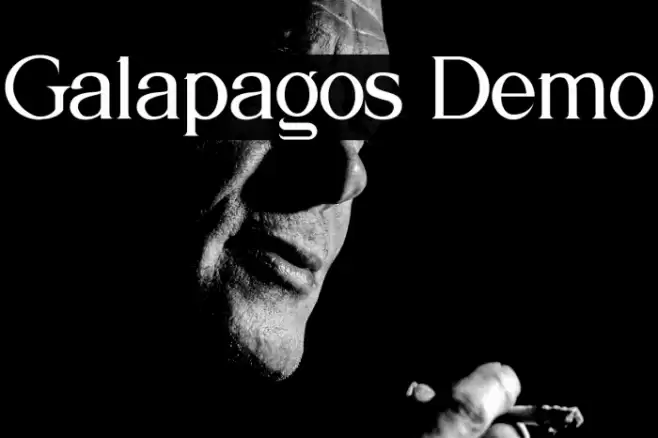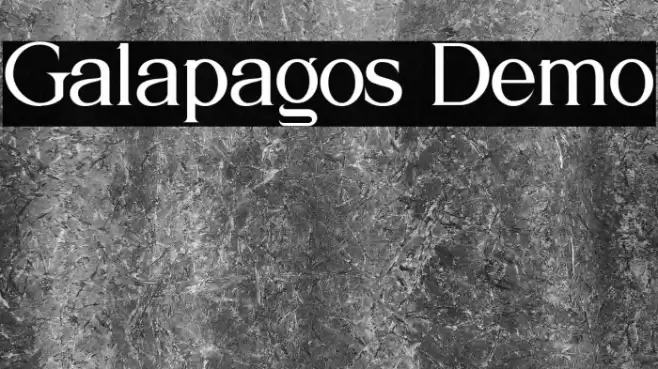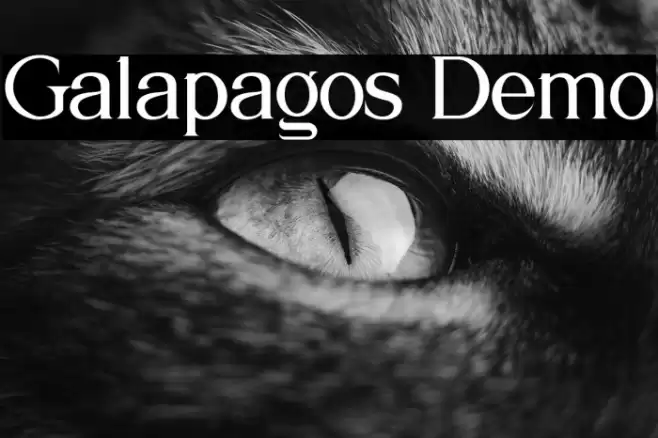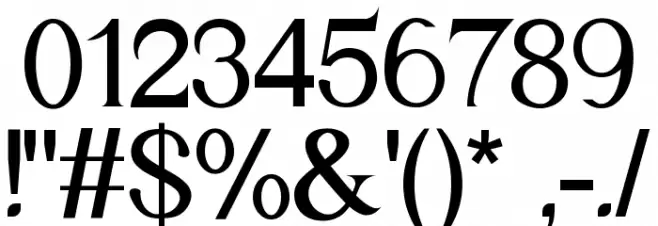
Galapagos Demo Font
Galapagos Demo Description
This font features a classic serif style with elegant, elongated strokes and a refined appearance. The uppercase letters exhibit a traditional formality, while the lowercase letters maintain a consistent flow with slightly rounded edges. The numerals are clear and balanced, providing excellent readability. Special characters are designed with precision, enhancing the font's versatility. The overall design is sophisticated, making it suitable for formal and professional applications. Its high contrast between thick and thin strokes adds a touch of elegance, making it ideal for projects that require a timeless and authoritative look.
A classic serif font with high contrast and elegant strokes, perfect for formal use from Regular fonts.
- Proposed Projects: Ideal for book covers, formal invitations, corporate branding, and editorial design.
- Overall Style: Classic